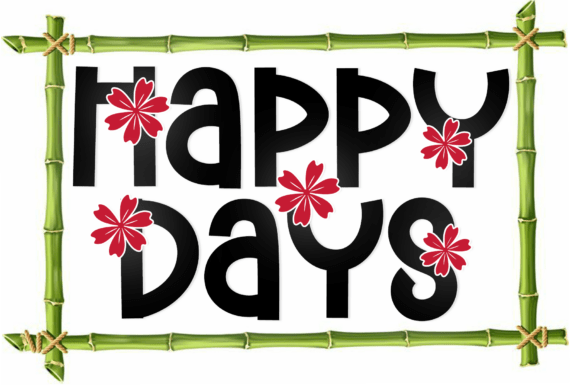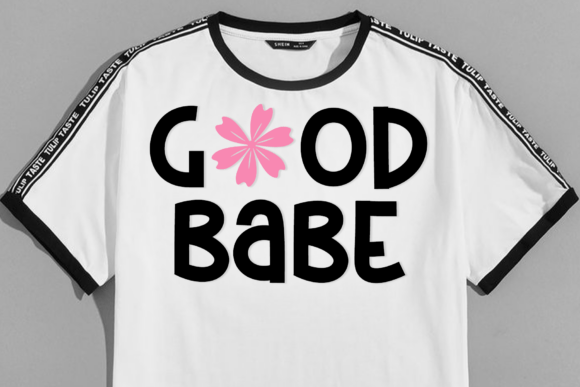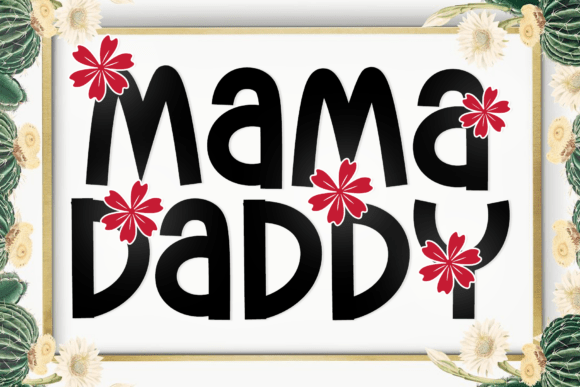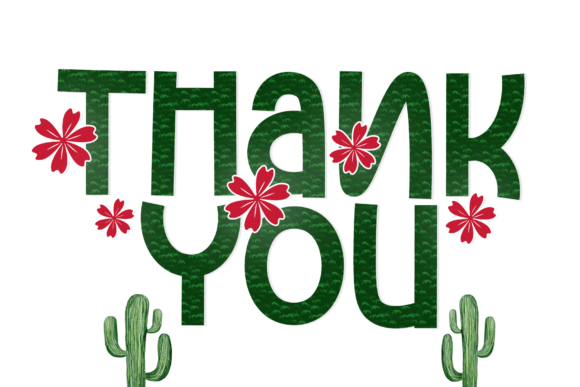
Discover the Perfect Blend of Whimsy and Elegance with Cactus Font
As a designer, there’s nothing quite like the thrill of bringing a concept to life. You’ve spent hours brainstorming, sketching, and refining your idea, and finally, it’s time to put it into words. You reach for your trusty font library, searching for the perfect match. And then, it happens – you stumble upon Cactus Font, a lovely and timeless handwritten font that sets your design ablaze with its unique charm.
With Cactus Font, every letter comes alive with a beautiful touch, making your design truly unforgettable. Whether you’re crafting eye-catching logos, branding, or quotes, this font is the perfect choice to make your creative vision shine. Its versatility and timeless appeal make it a valuable asset for designers, allowing you to create pieces that are both stylish and enduring.
Cactus Font Key Features
- Font Family: Cactus Font is a unique, hand-drawn font with a cactus-inspired design.
- Character Count: The font includes a wide range of characters, including uppercase and lowercase letters, numbers, and punctuation marks.
- Unique Characteristics: The Cactus Font features a distinctive, hand-drawn style with intricate details and textures, giving it a unique and eye-catching appearance.
Cactus Font Review
As a designer, I’ve had the chance to work with many fonts, and Cactus Font is one that caught my eye. Here’s my honest review.
- ✨ Unique and quirky design: Cactus Font has a one-of-a-kind style that’s perfect for adding a touch of whimsy to your designs.
- ✨ High-quality rendering: The font is well-rendered, with clear and crisp lines that make it easy to read.
- ✨ Versatile: Cactus Font comes in a range of weights and styles, making it suitable for everything from body text to headlines.
- ⚠️ Limited legibility at small sizes: While the font looks great at larger sizes, it can become a bit difficult to read at smaller sizes.
- ⚠️ May not be suitable for formal designs: Cactus Font’s quirky style may not be the best fit for more formal or professional designs.
Cactus Font is a fun and unique font that’s perfect for adding some personality to your designs. While it may have some limitations, it’s definitely worth considering for the right project. With a little care and attention, Cactus Font can be a great addition to your design toolbox.
Cactus Font is a great choice for designs that need a unique and playful touch. Some common use cases include:
– Branding and logo designs
– Invitations and event materials
– Children’s educational materials and games
– Any design that needs a fun and quirky feel.